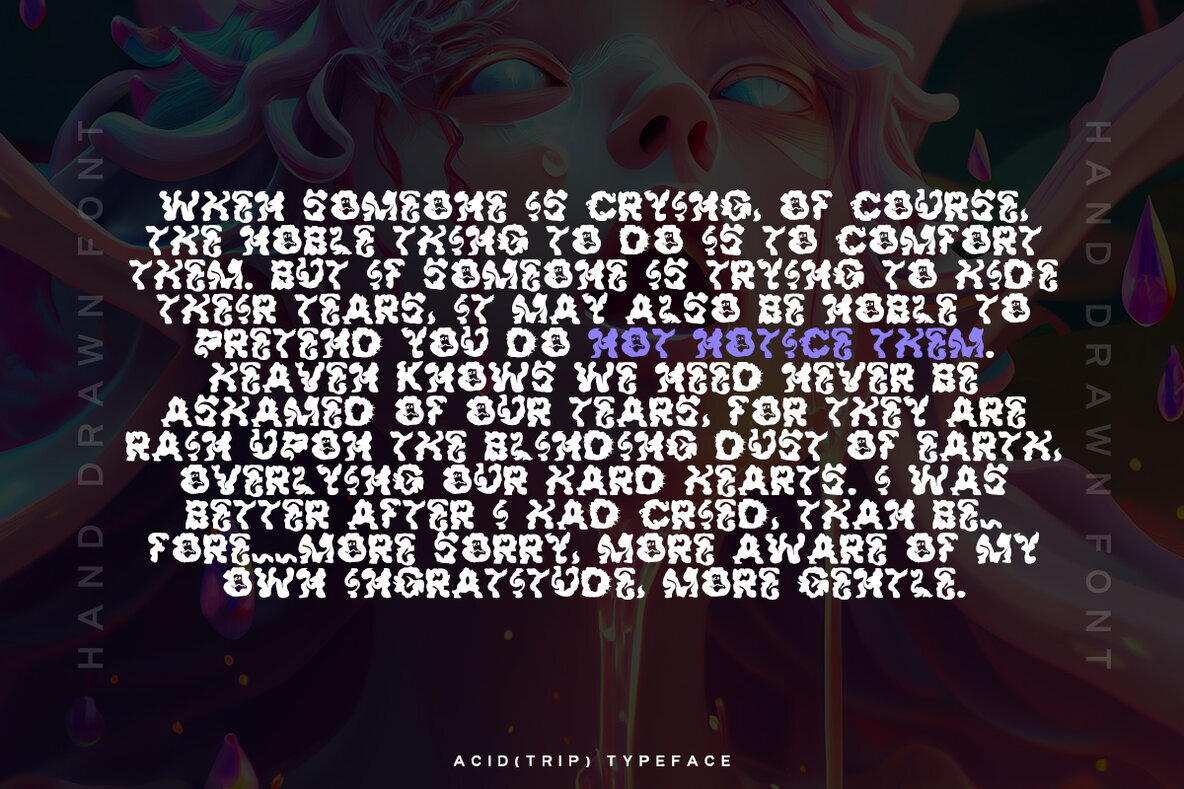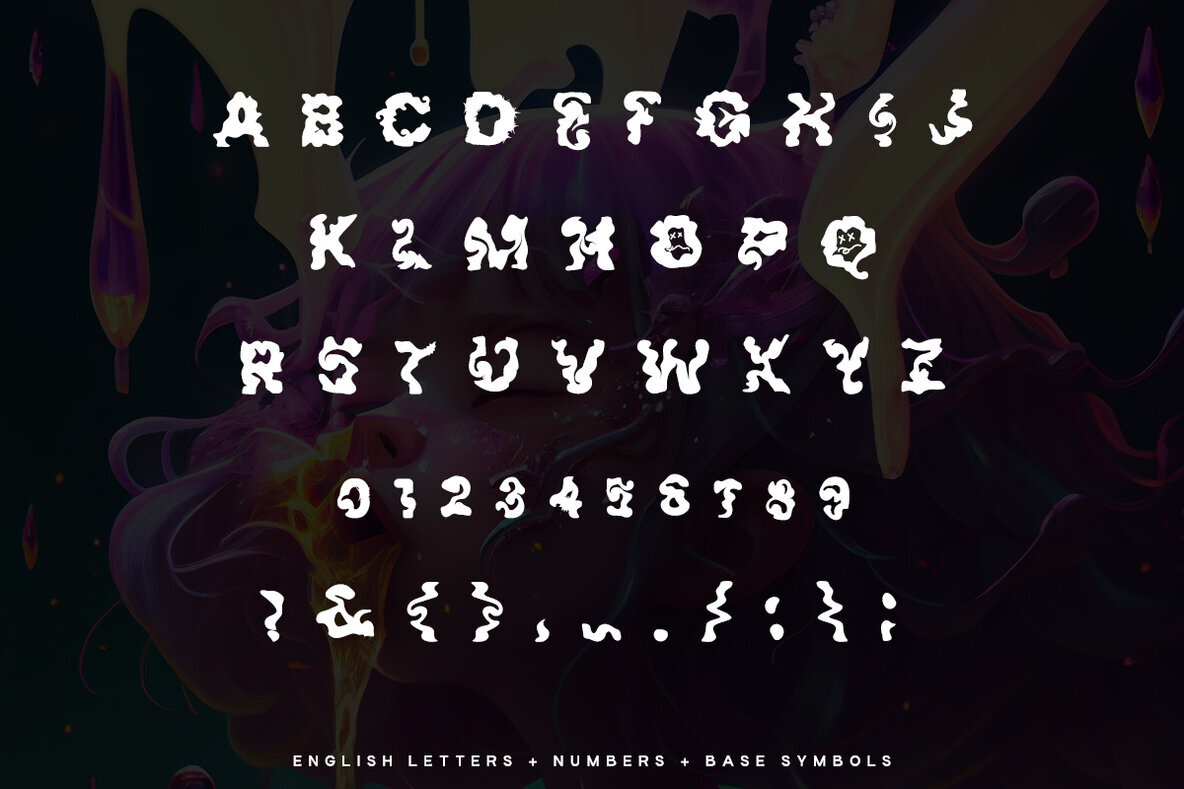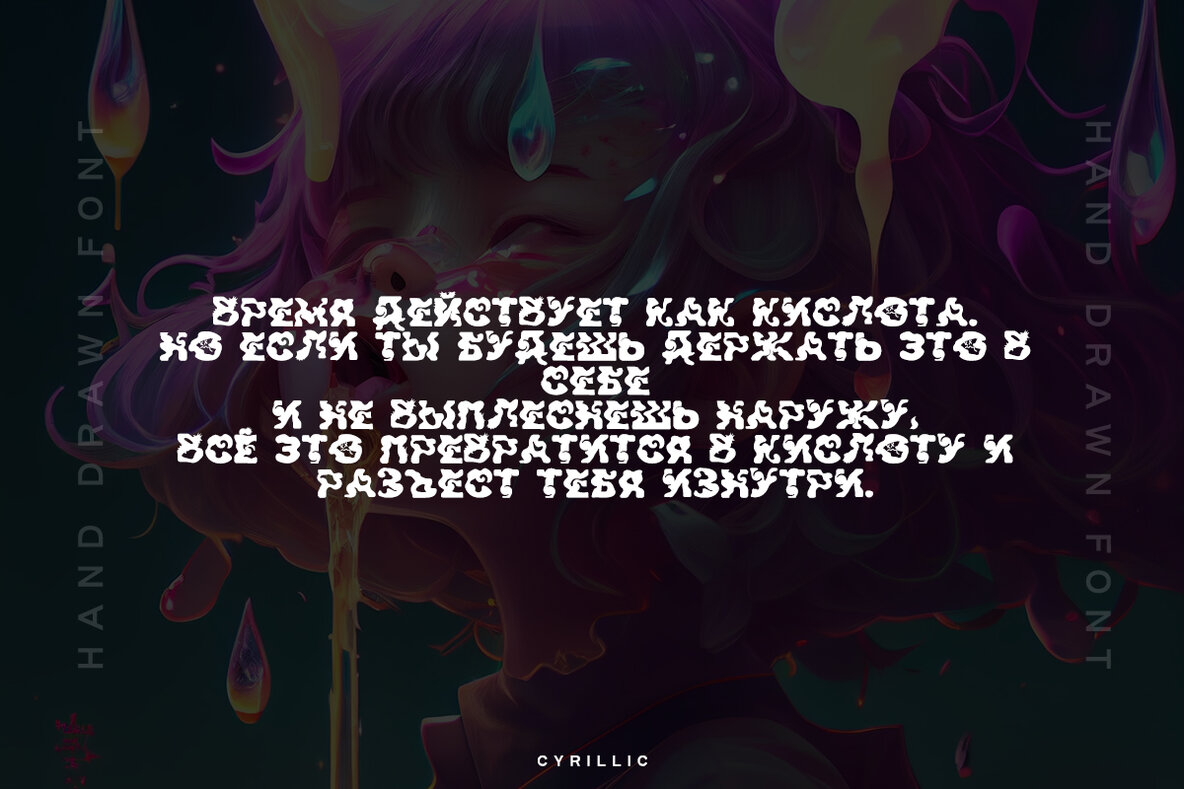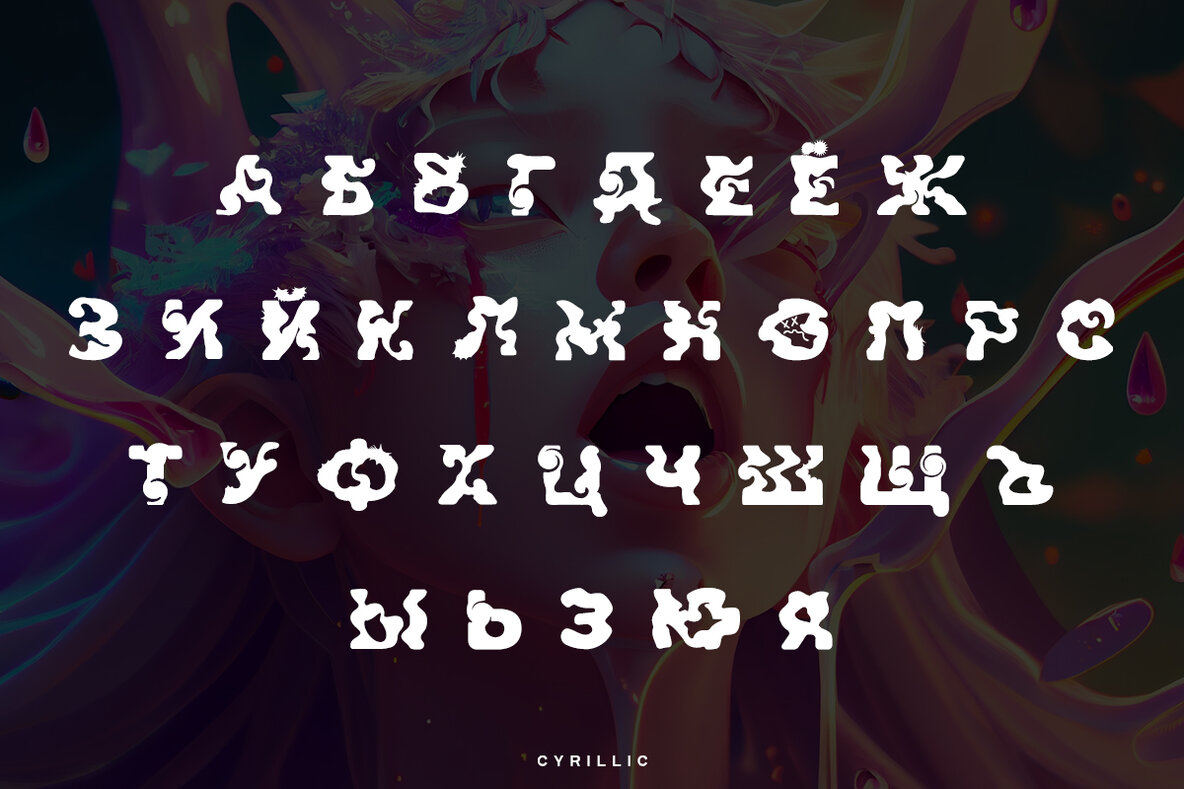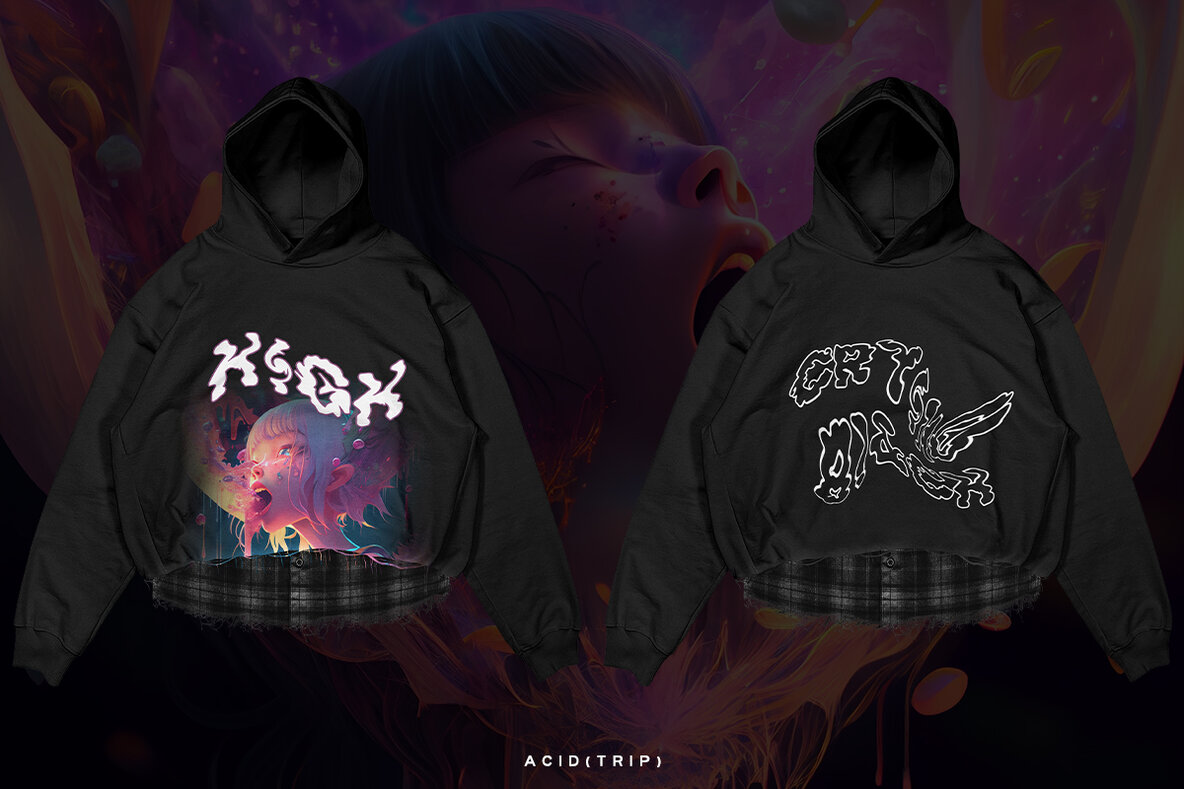
Acid Trip Font
Acid Trip
Acid(Trip) is a psychedelic acid hand-drawn font. It's perfect for music artwork, psychedelic/experimental themes, and street wear fashion. Also this font contains a Cyrillic.
- A-Z characters
- base symbols
- 0-9 numbers
- A-Я characters (Cyrillic)